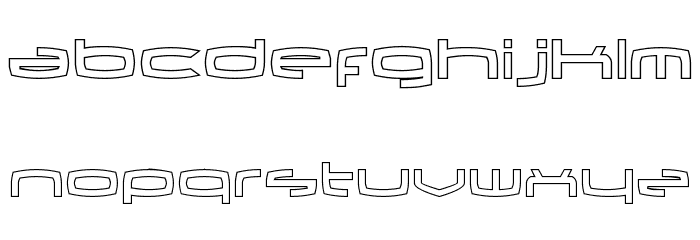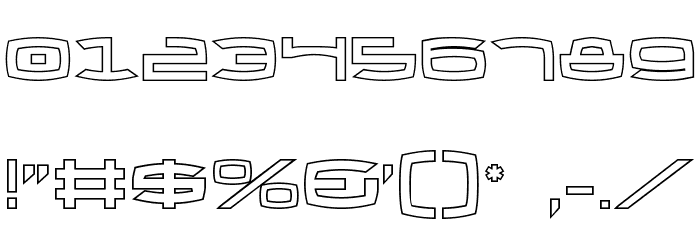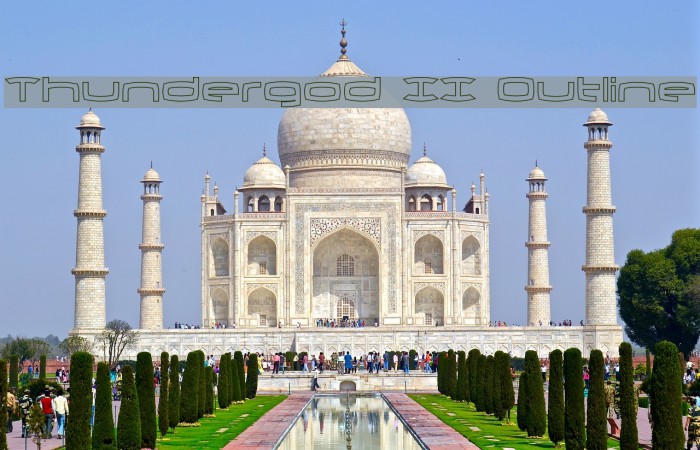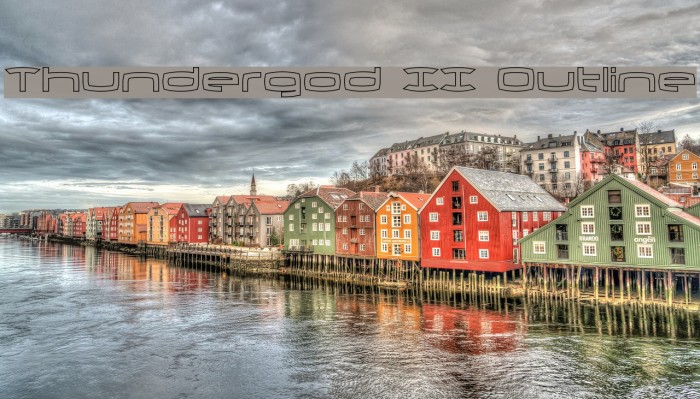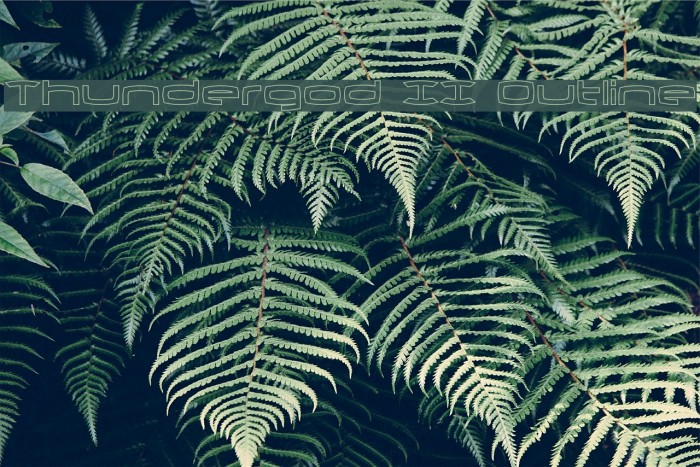
Thundergod II Outline Font
This font features a futuristic and geometric design with an outline style that gives it a distinct and modern appearance. The characters are constructed with clean, angular lines and sharp edges, creating a sense of precision and technological sophistication. The uppercase and lowercase letters maintain a consistent style, with a uniform height and width that enhances readability. The numerals and special characters are designed to match the overall aesthetic, ensuring a cohesive look across all text elements. This font's unique outline design makes it stand out, while its geometric structure provides a sense of order and clarity.
A futuristic, geometric outline font with sharp, angular lines.
- Font: Thundergod II Outline
- Proposed Projects: Ideal for sci-fi themed projects, technology branding, video game titles, and modern poster designs.